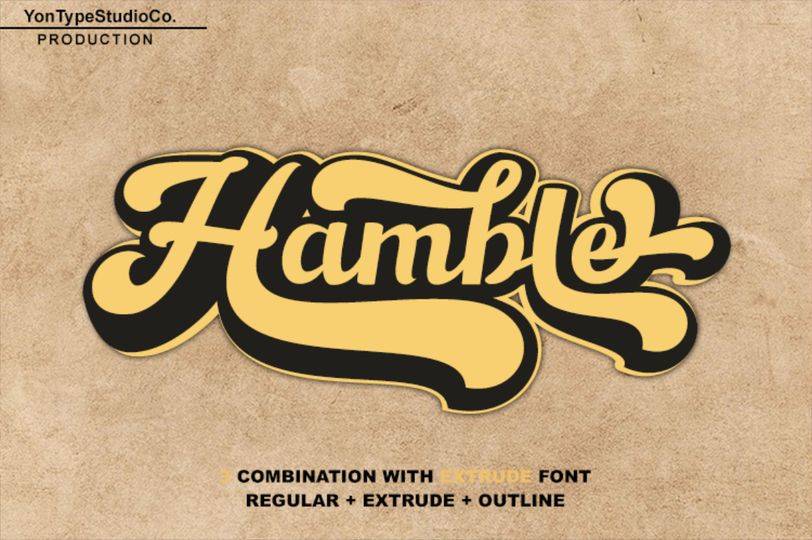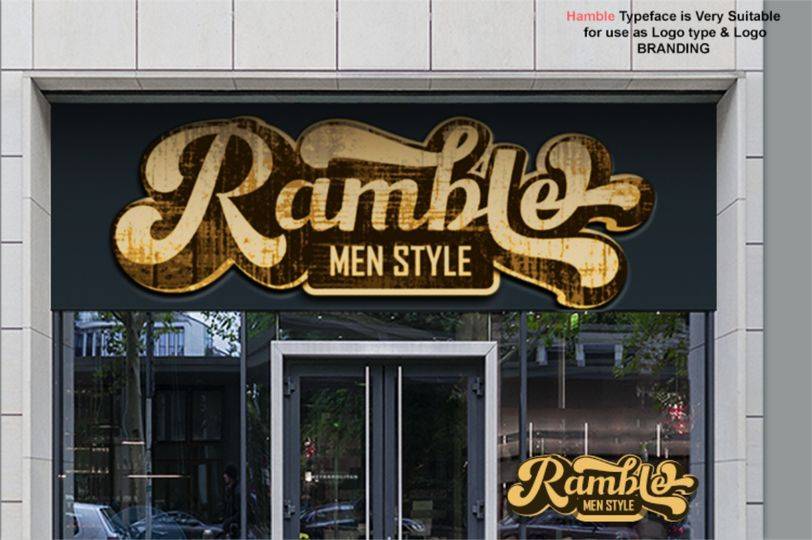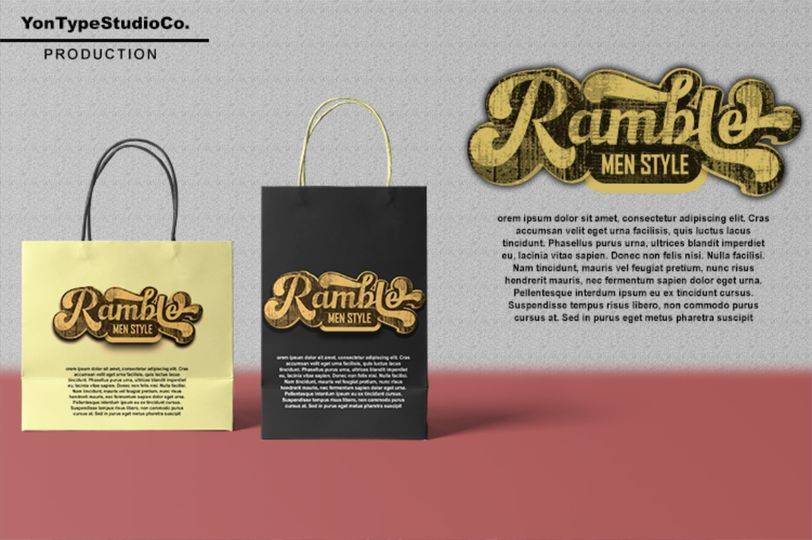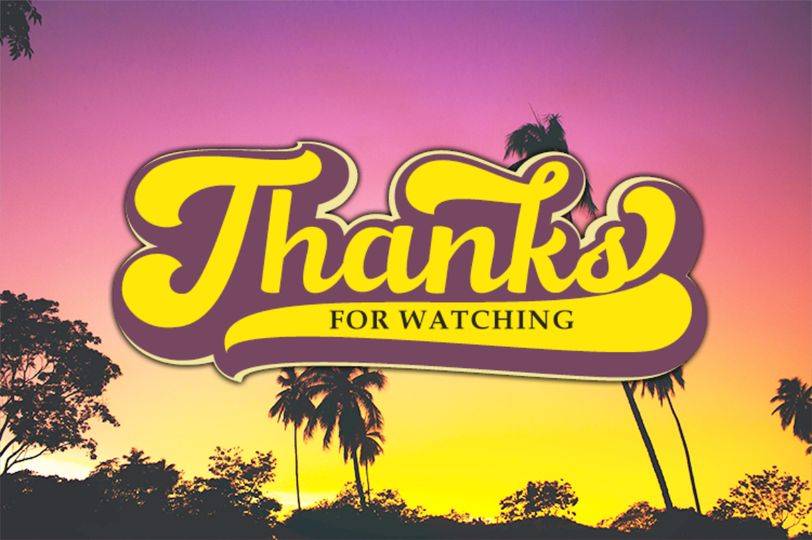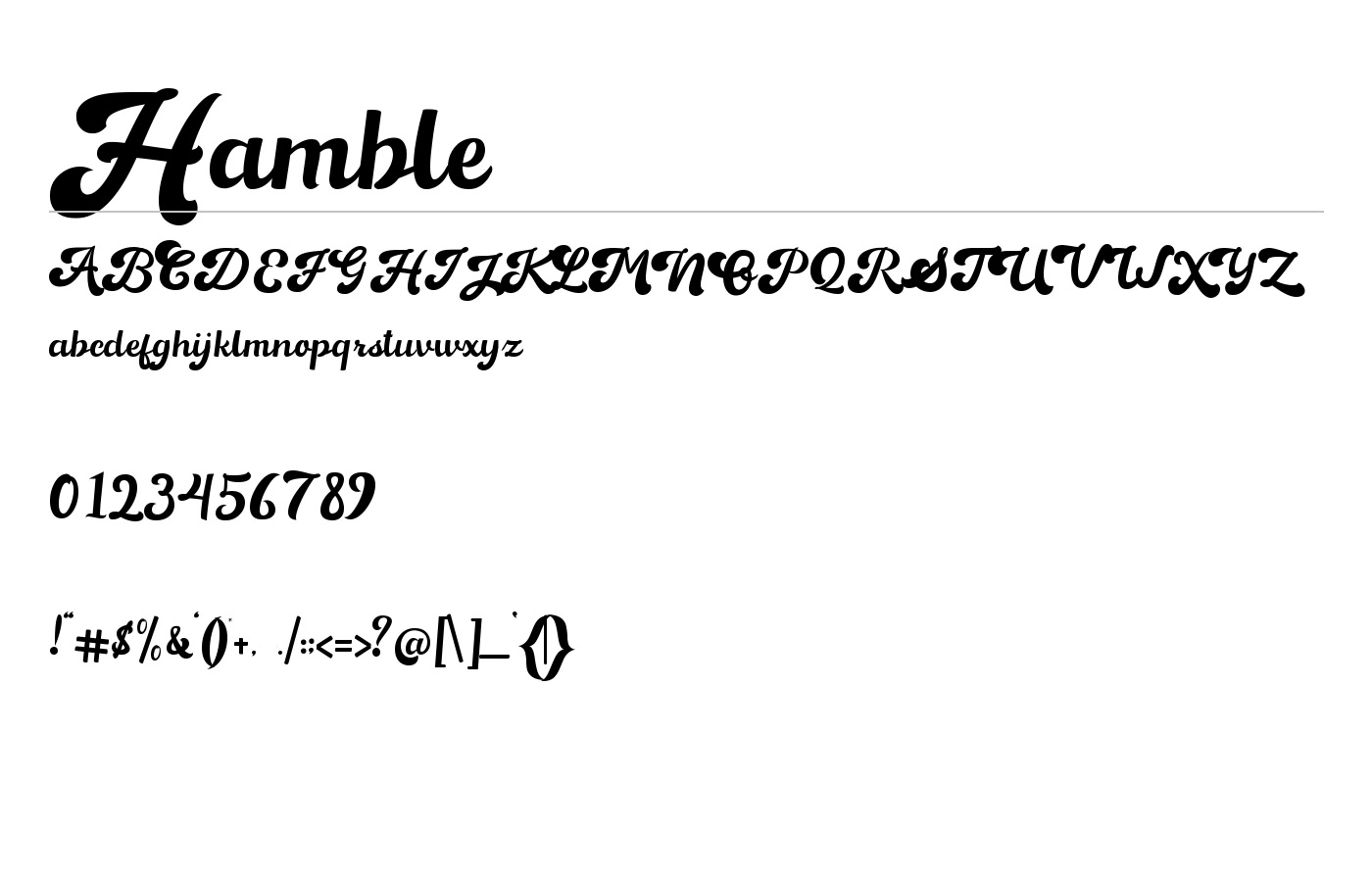
Hamble is a bold, script-style font with a classic yet lively feel, featuring smooth, flowing curves and moderate contrast between thick and thin strokes. Its elegant and slightly vintage vibe makes it perfect for branding, logos, and headlines where a refined but approachable personality is desired. This font works especially well for fashion, packaging, and invitations, adding a touch of sophistication and charm.